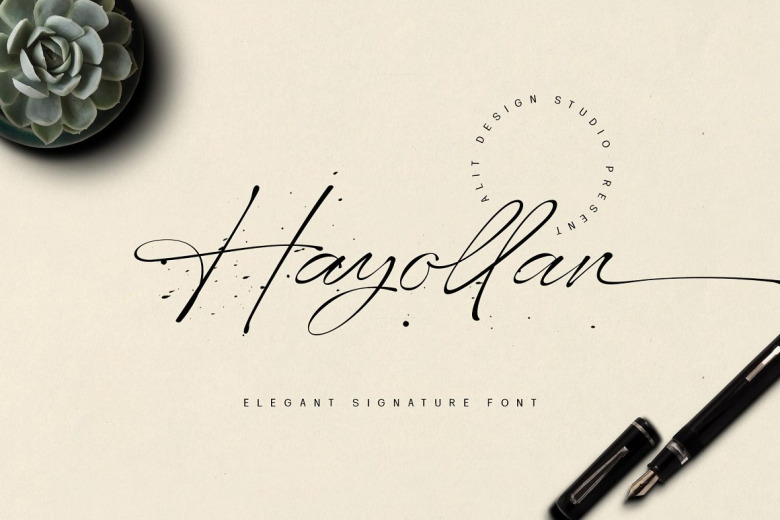
Hayollan Font
The Hayollan Signature Script Font is inspired by spontaneous and dynamic signature strokes with an ink texture that makes the Hayollan font look real. The Hayollan font looks unique and charming which makes designs using the Hayollan font look more prominent and cool. The Hayollan font is perfect for a collection of new fonts on your computer, tablet and smartphone for making unique designs or lettering.
Hayollan Signature Script Font